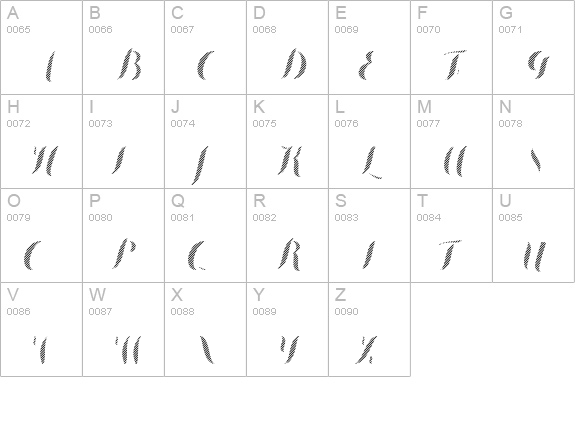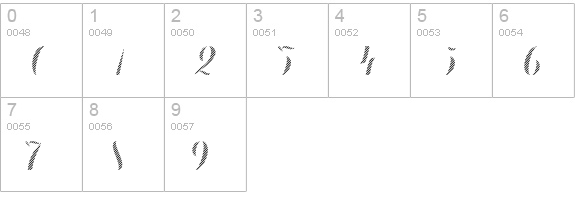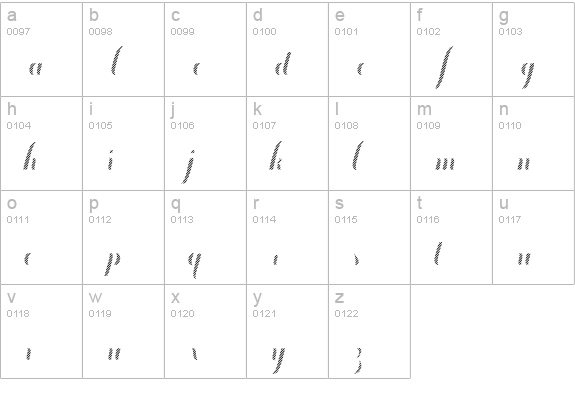
Chameleon Fill Stripe4 font is a vibrant and dynamic typeface that exudes a sense of energy and creativity. With its unique design featuring striped fill patterns, this font is perfect for adding a modern and eye-catching touch to your projects. The versatility of Chameleon Fill Stripe4 font makes it suitable for a wide range of design applications, from posters and logos to social media graphics and branding materials. Best of all, Chameleon Fill Stripe4 font is available for free download at FontsMarket.com. Whether you're a professional designer looking for a fresh new font to add to your collection or a hobbyist seeking to enhance your creative projects, this font is sure to inspire and impress. Don't miss out on the opportunity to access this stylish and contemporary typeface for free – download Chameleon Fill Stripe4 font today and elevate your designs to the next level!